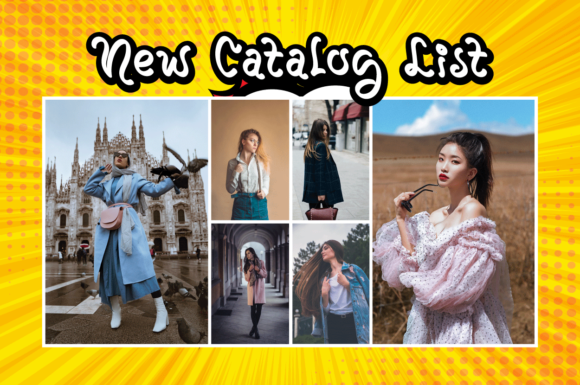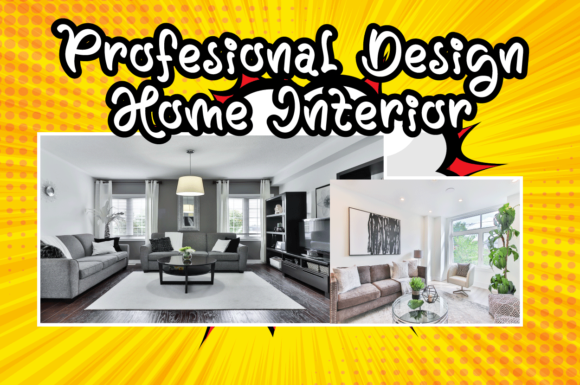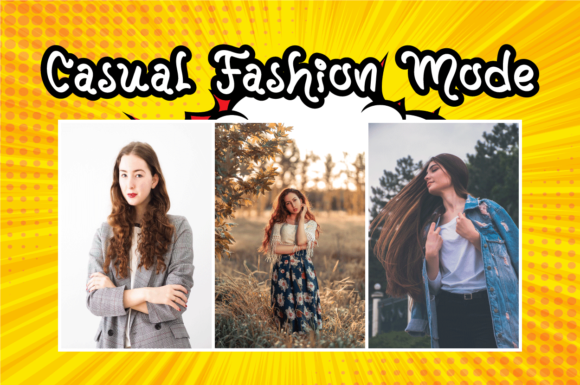
Strong Magic Font
About Strong Magic Font
Strong Magic is a cute and quirky handwritten font. Add this round lettered and sweet font to your creations and you will love the final results.